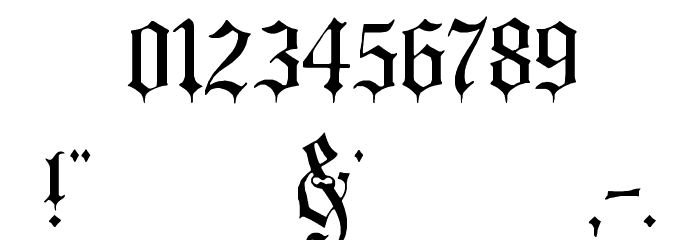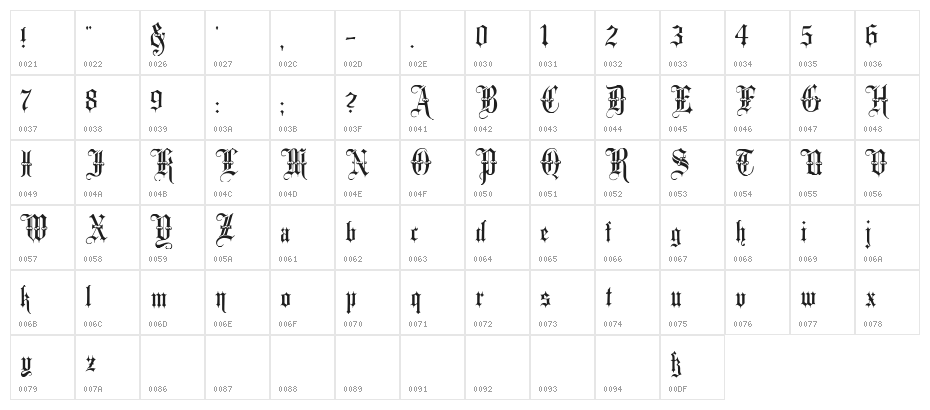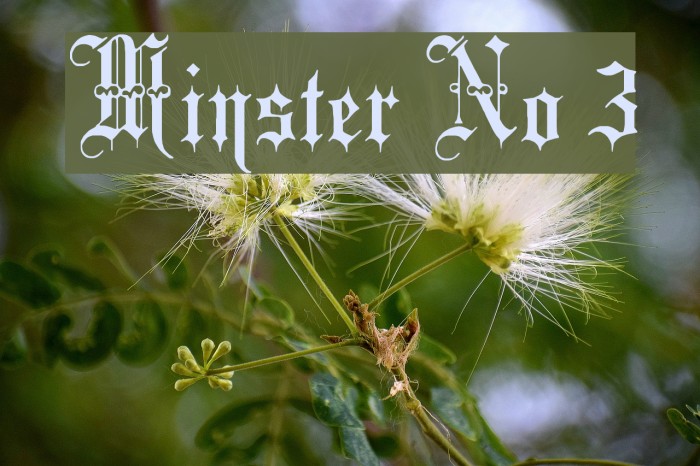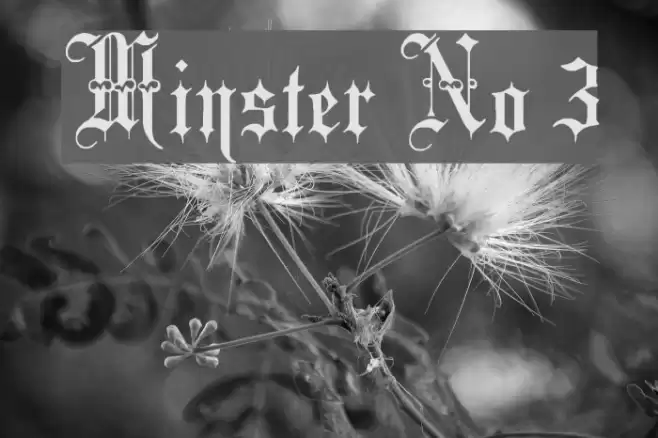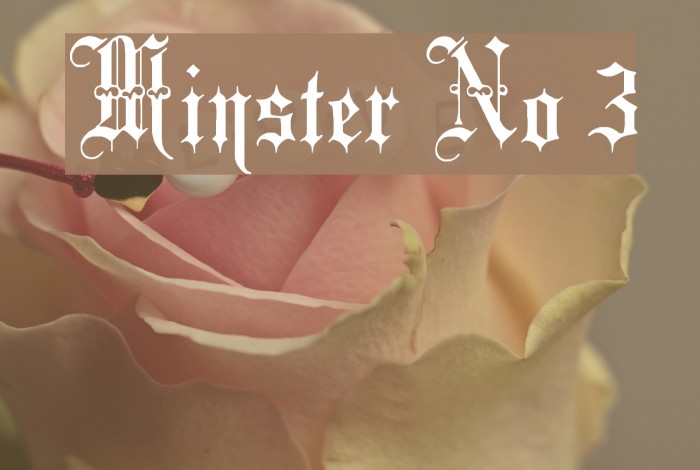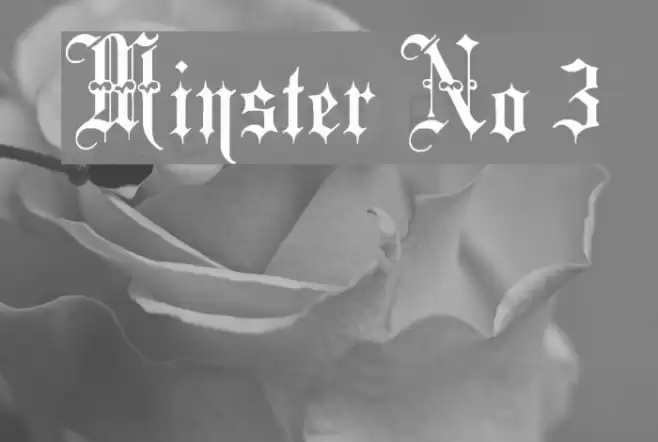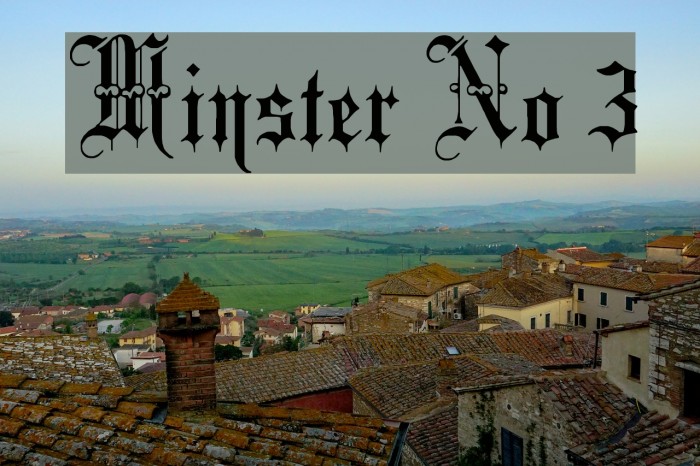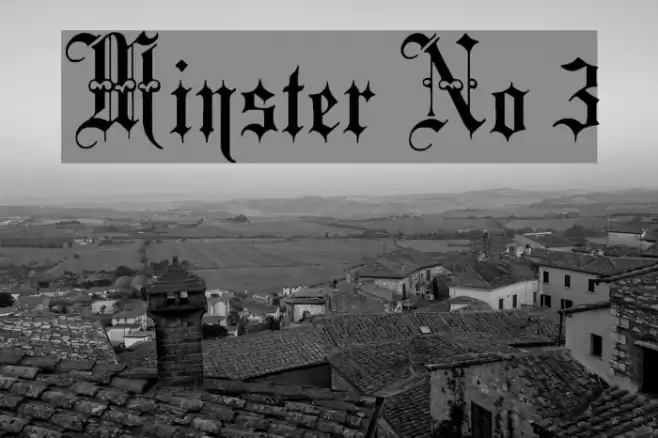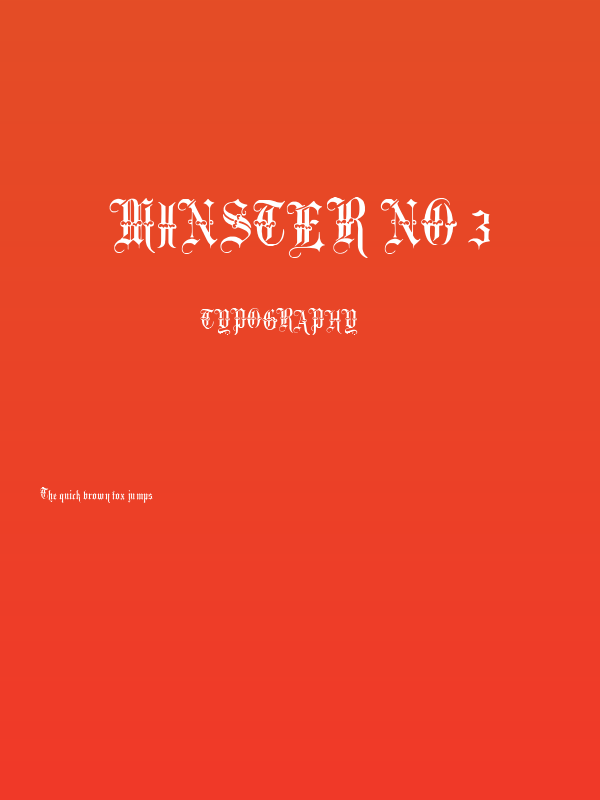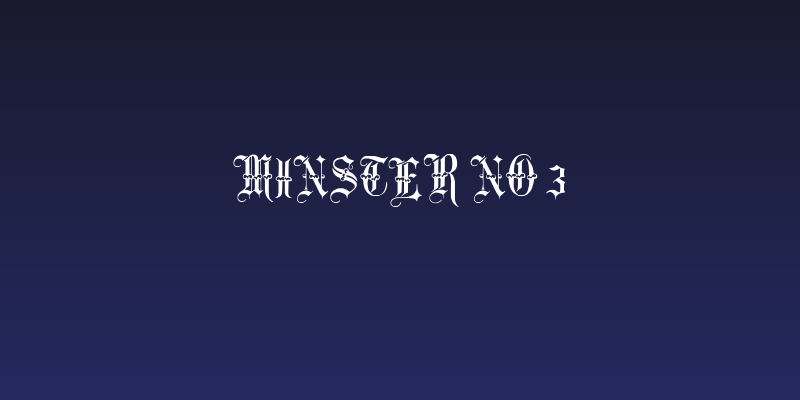
Minster No 3 Font
This font exhibits a classic blackletter style, characterized by its intricate and ornate design. The uppercase letters are particularly elaborate, featuring sharp, angular lines and decorative flourishes that evoke a sense of historical elegance. The lowercase letters maintain a similar aesthetic, though they are slightly more subdued in their ornamentation. The numerals are consistent with the overall style, offering a cohesive look across all characters. This font's unique and bold appearance makes it ideal for projects that require a touch of vintage sophistication.
| Overall Style | Vintage |
| Use Case | Headlines, Logos, Decorative text |
| Proposed Projects | Ideal for historical documents, wedding invitations, certificates, and branding that requires a vintage or gothic touch. |